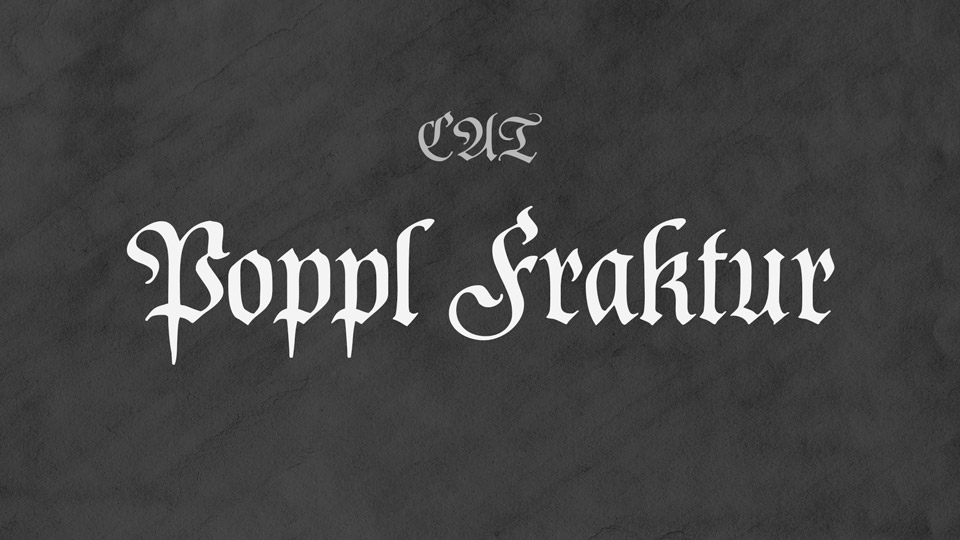
Download Poppl Fraktur, a gothic font based on the typeface published by Berthold AG type foundry in 1986. Poppl Fraktur is still very popular today as an advertising font.